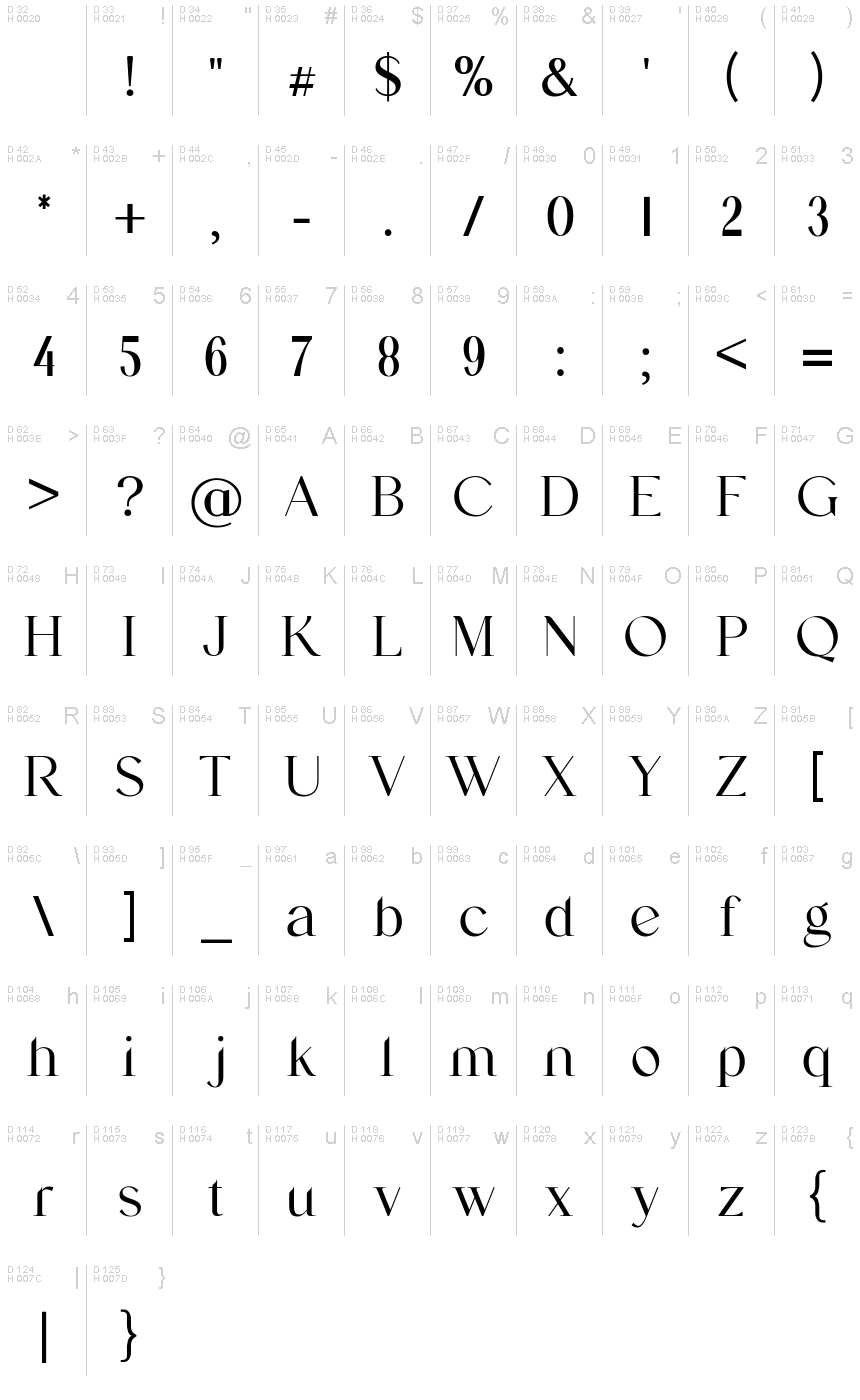
Glomerolus
Glomerolus, a captivating serif font designed by UI Creative, exudes an elegant and timeless aesthetic. Its intricate serifs and refined letterforms evoke a sense of sophistication and craftsmanship, while the balanced proportions and harmonious flow create a visually striking impression. The font's distinctive character and attention to detail make it a compelling choice for projects that require a touch of sophistication and refinement.
Glomerolus' versatility shines through in its suitability for a wide range of design applications, from editorial layouts and book covers to branding and marketing materials. Its classic yet modern sensibility lends itself seamlessly to both traditional and contemporary design settings, making it an invaluable asset for creatives seeking to elevate the visual impact of their work.